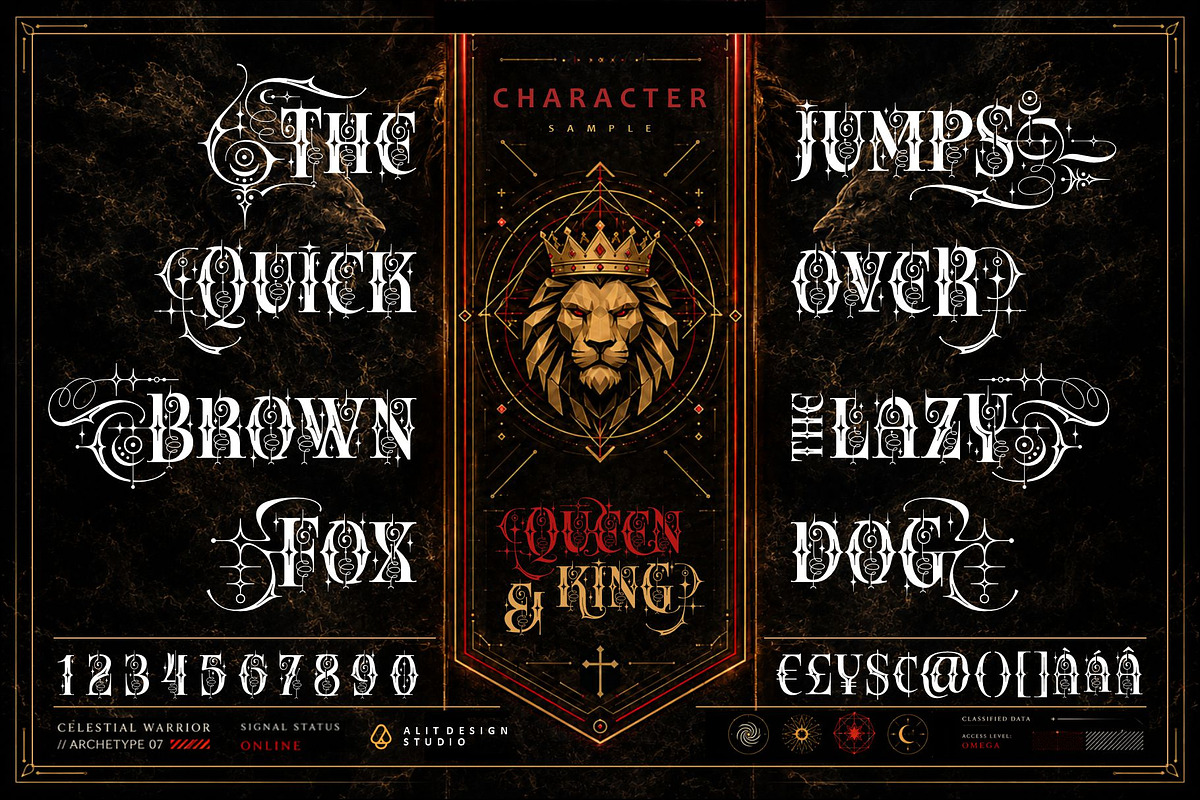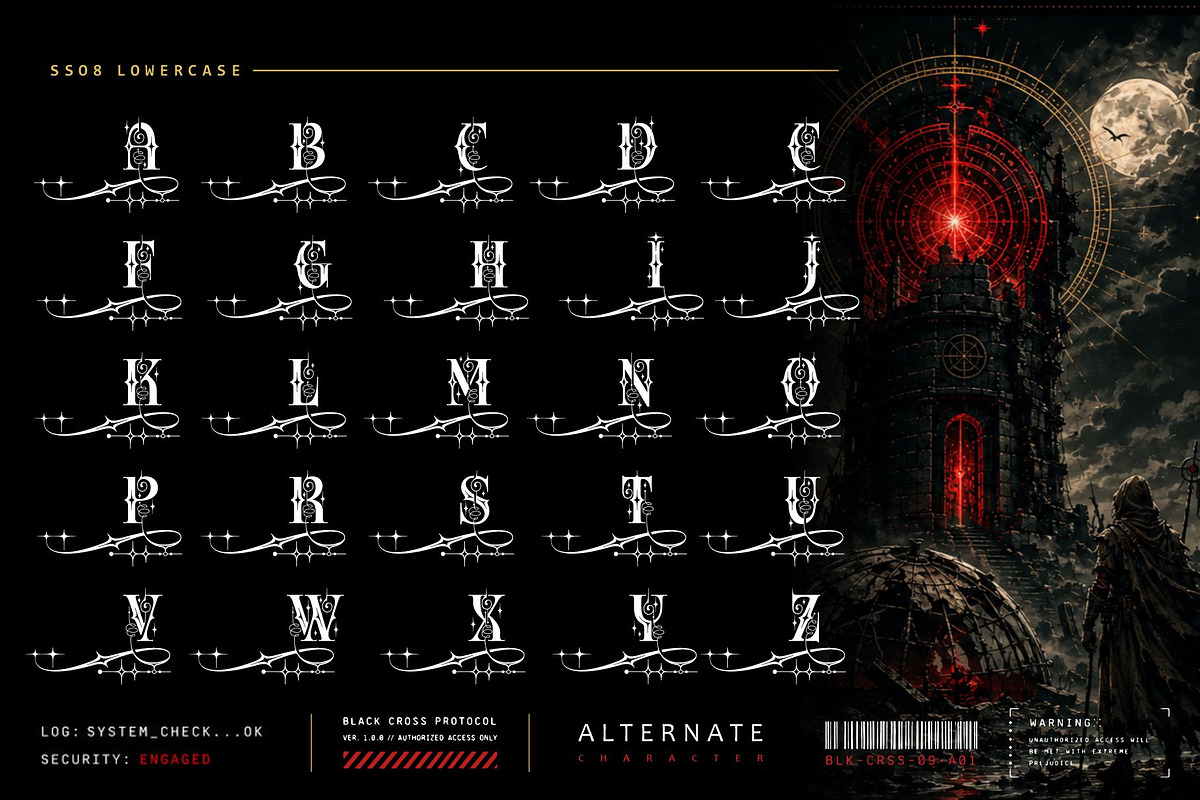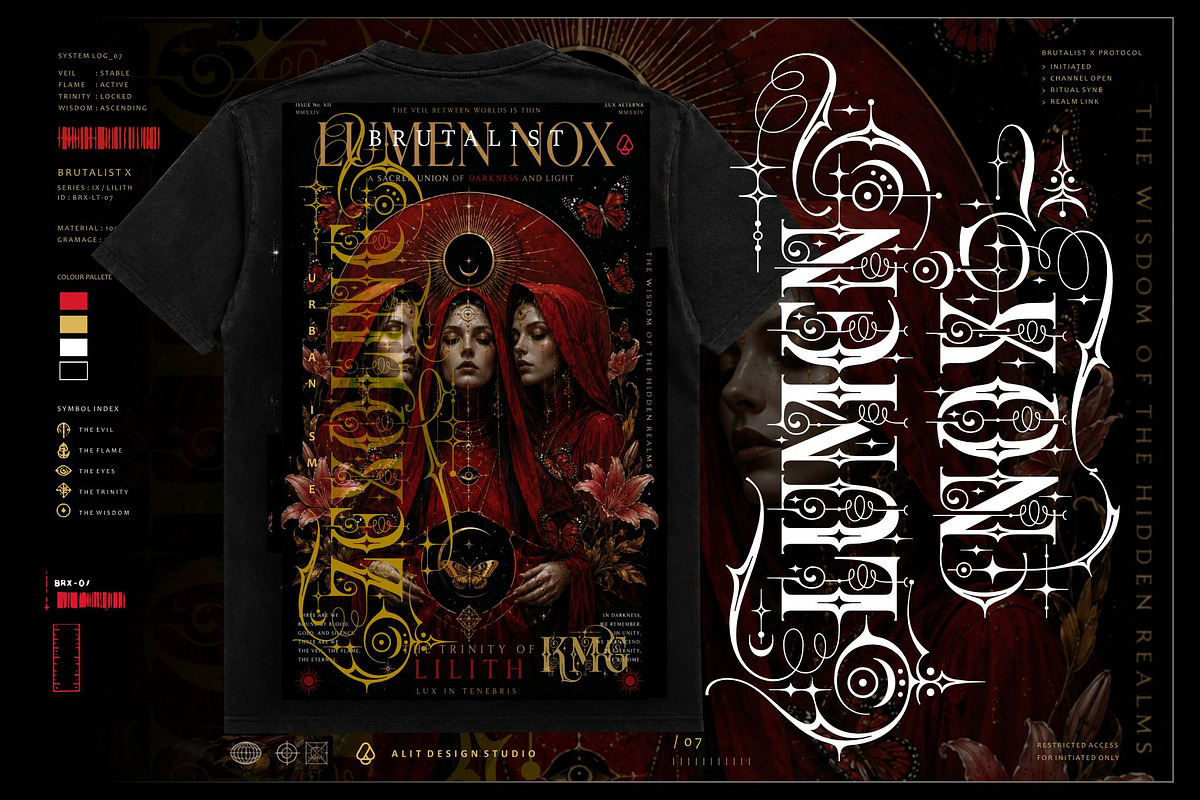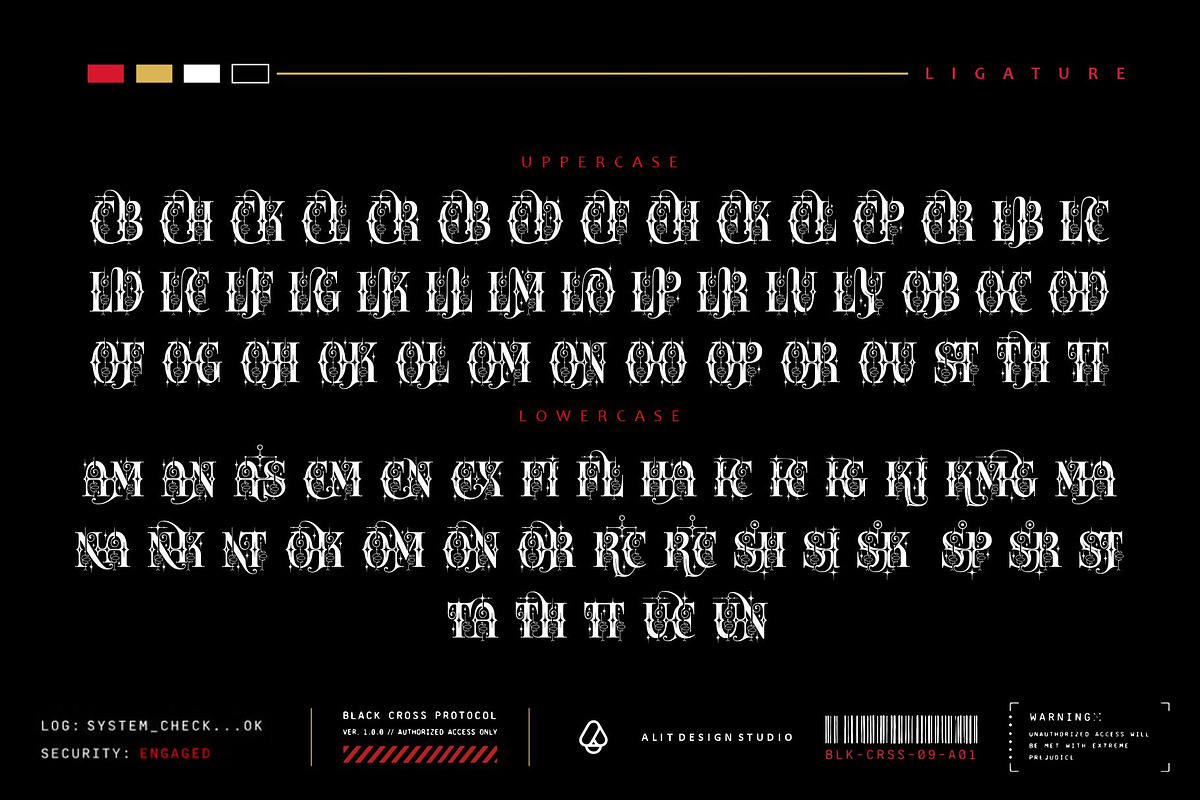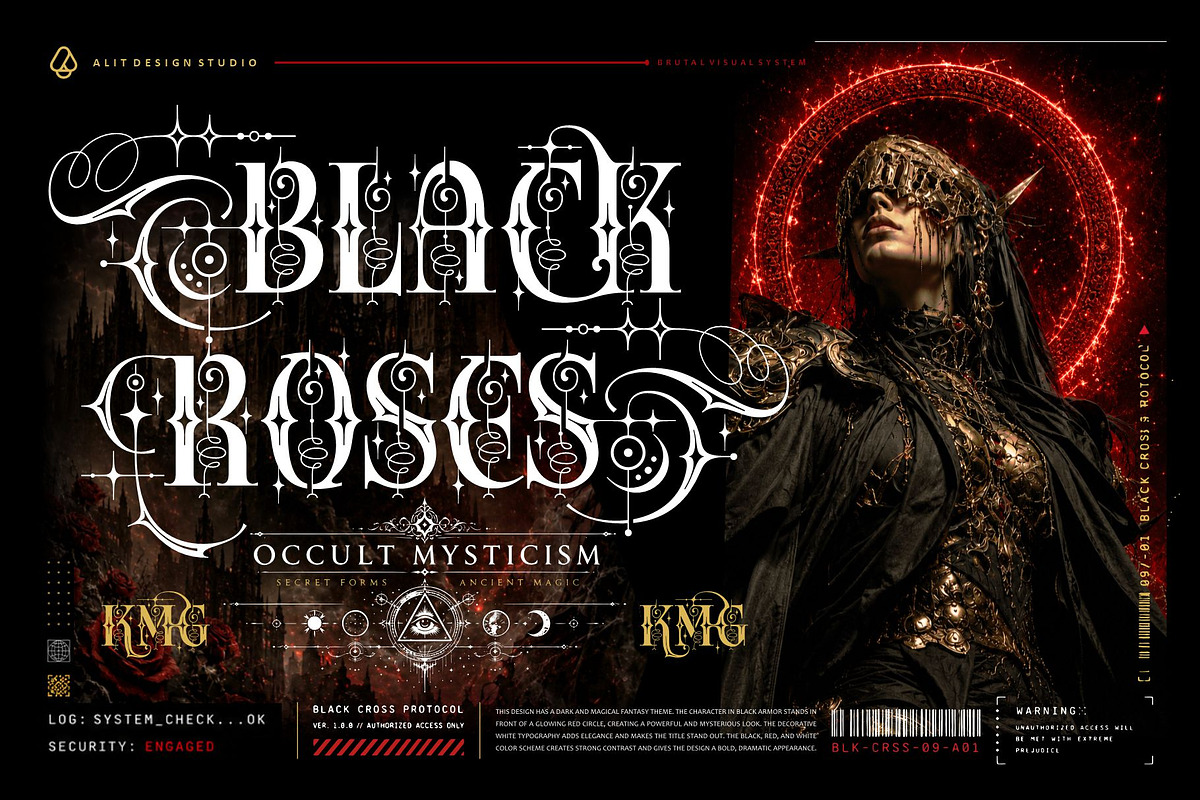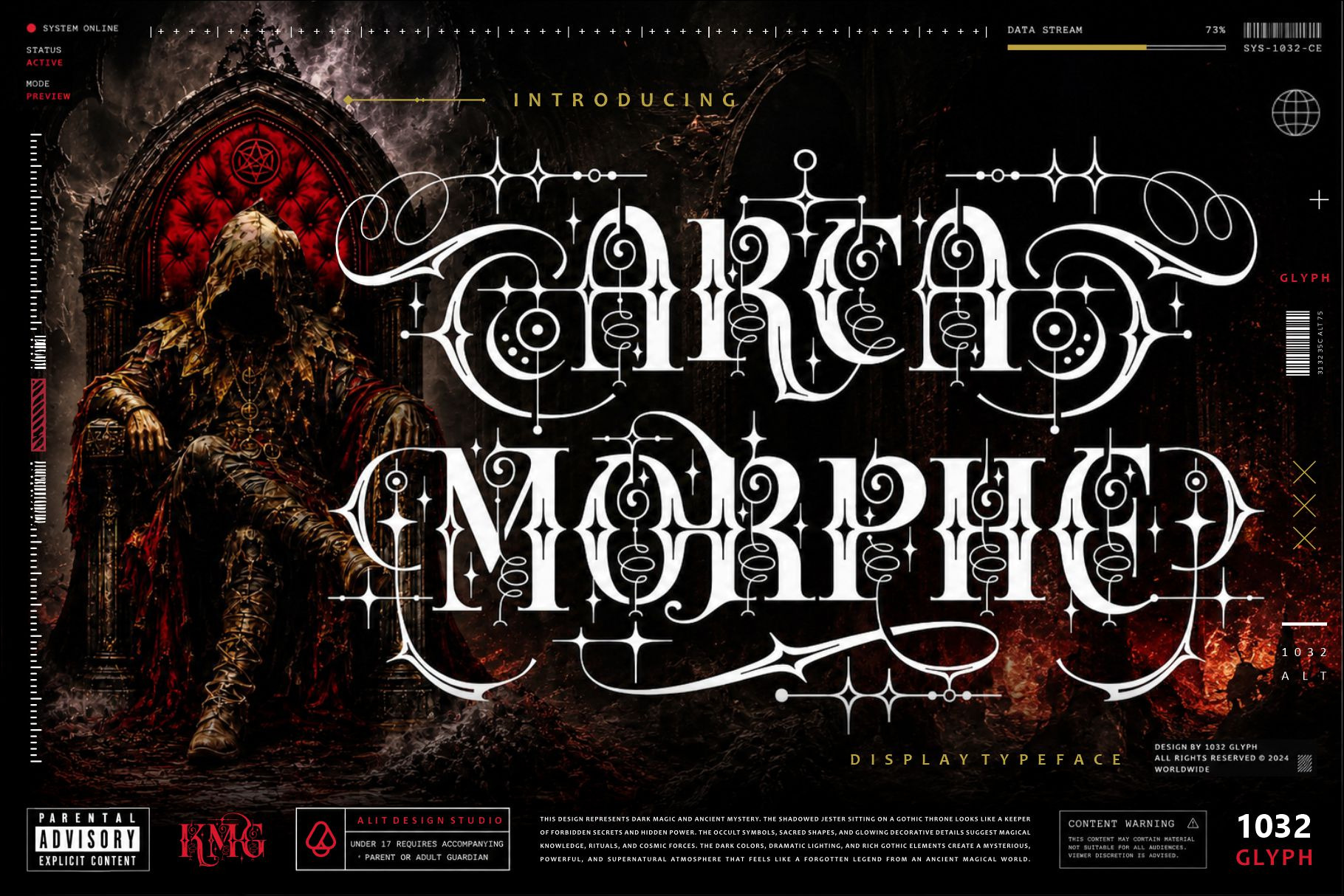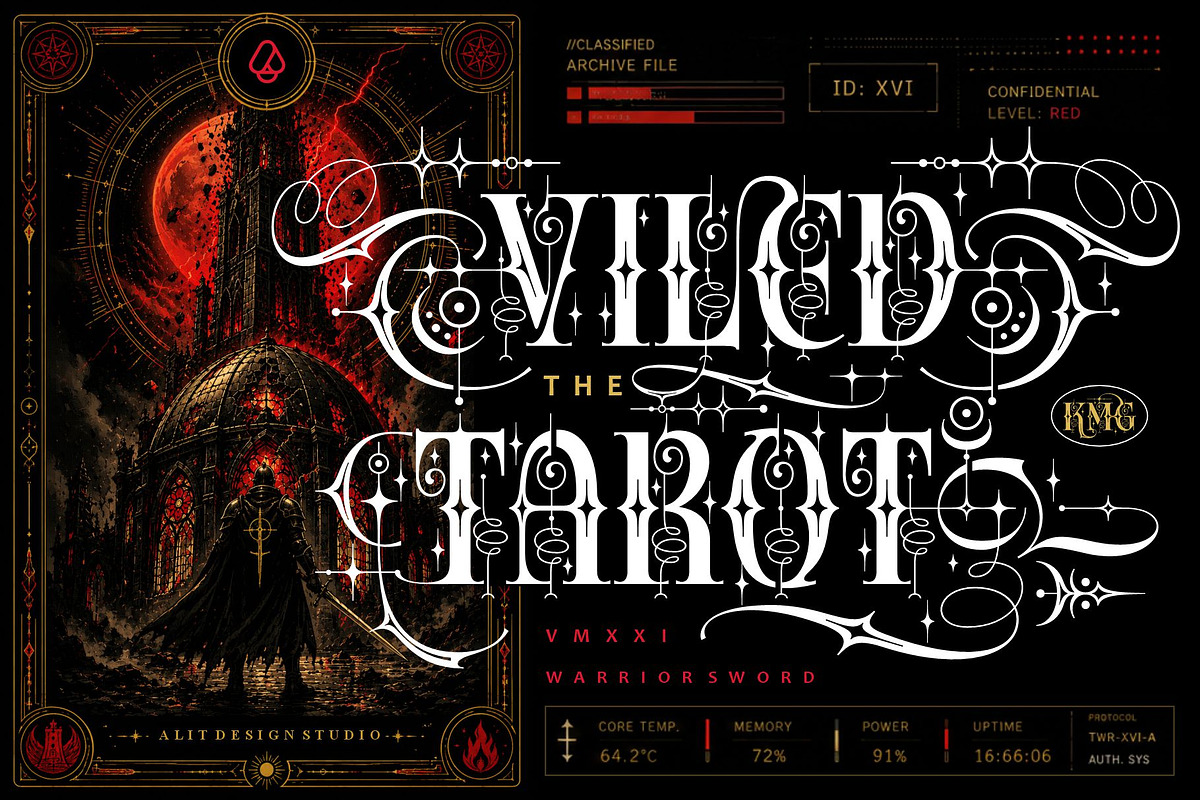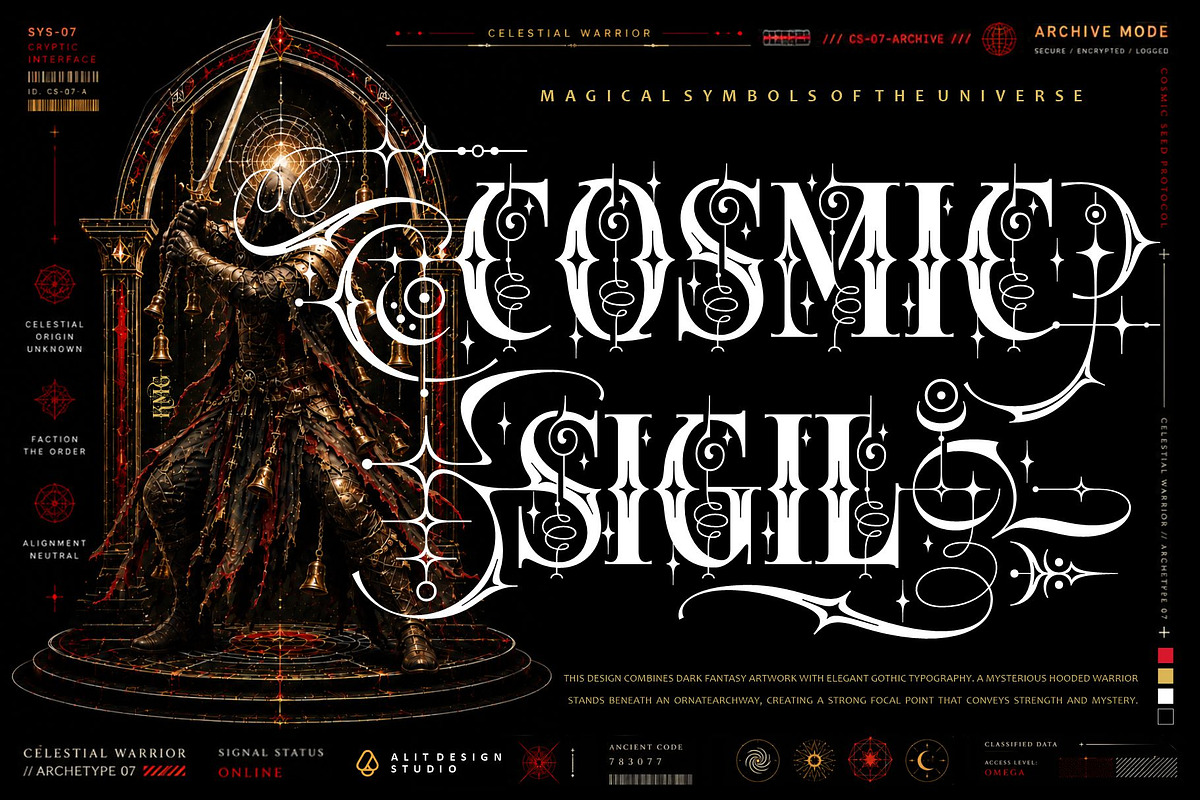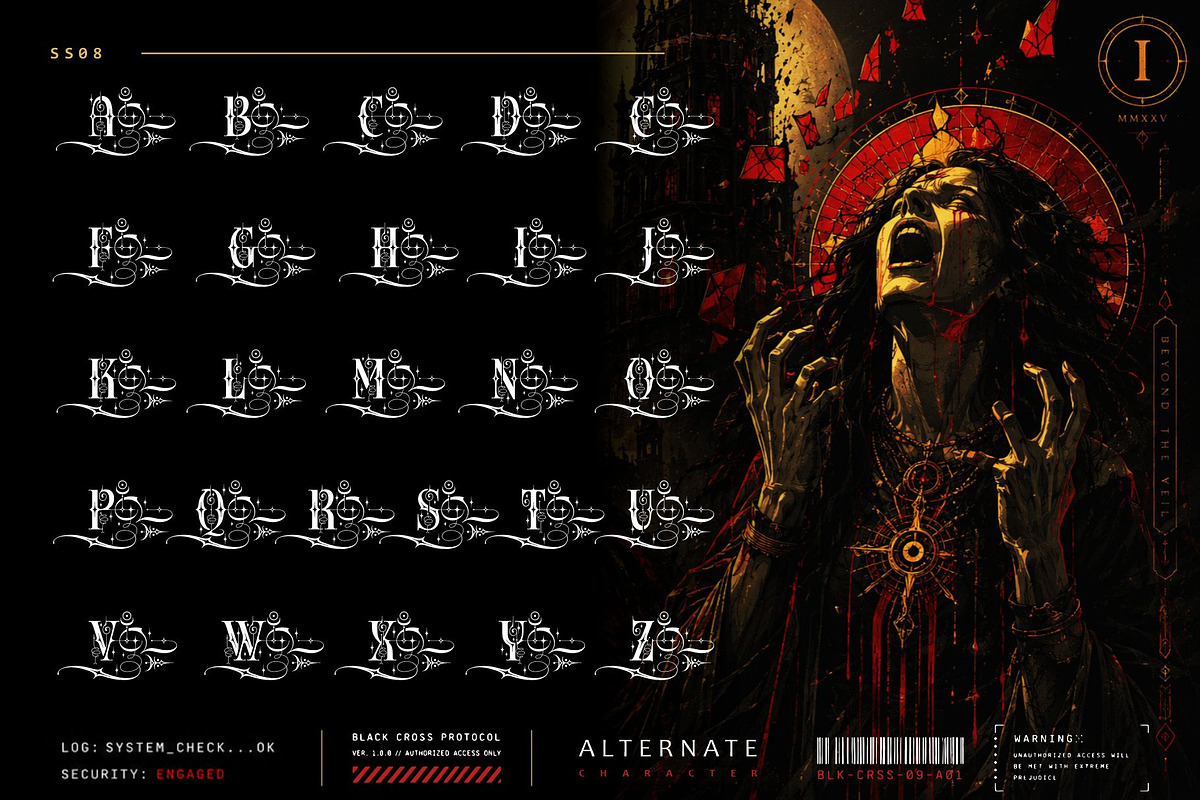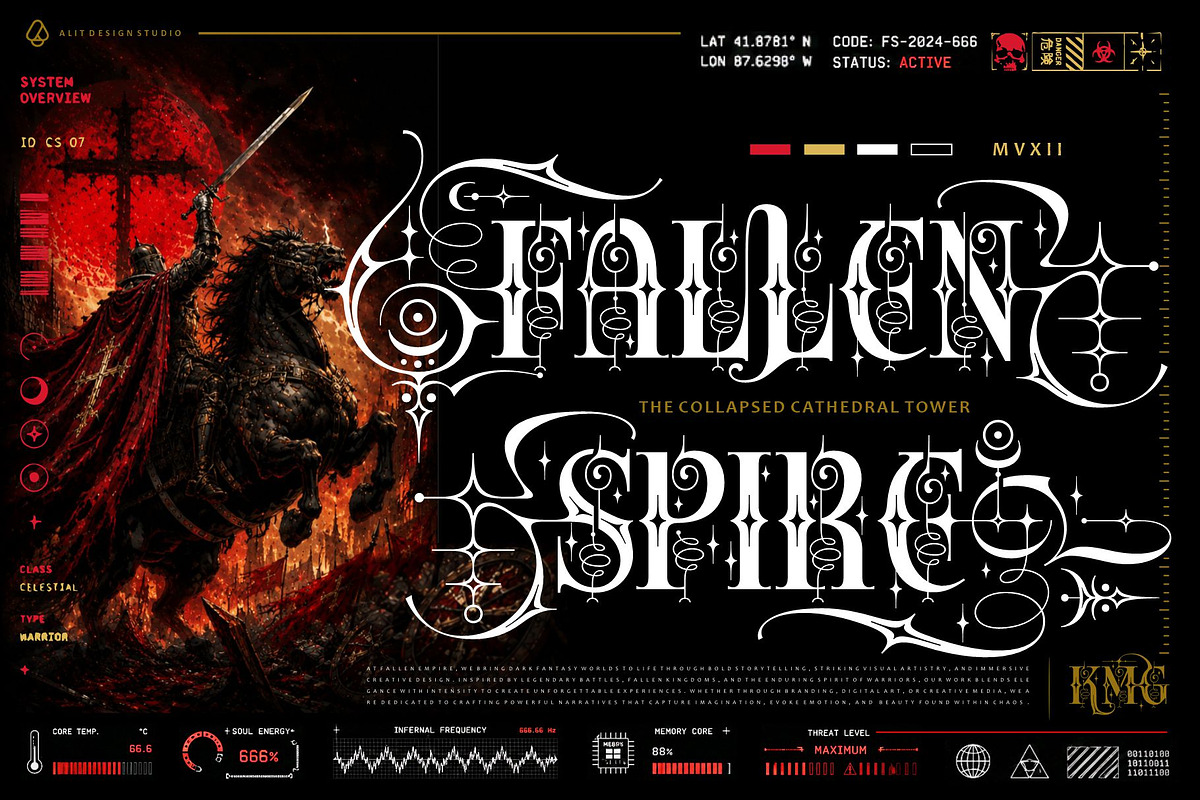
Arca Morphe Typeface
Unleash the Magic of Ancient Typography
Step into a realm of dark fantasy and celestial elegance with Arca Morphe, a breathtakingly intricate display typeface designed to captivate and mystify. Forged with a unique blend of gothic grandeur and esoteric mysticism, this font is not just a tool for writing; it is an instrument of spellbinding design.
Arca Morphe is defined by its sweeping, ornate swashes, celestial starburst accents, and complex, labyrinthine linework that evokes the feeling of ancient grimoires and forgotten magical sigils. Whether you are summoning the atmosphere of a dark fantasy epic, crafting the branding for an arcane society, or designing striking merchandise, Arca Morphe delivers an aesthetic of "Savage Elegance" that commands attention.
A Universe of Design Possibilities This typeface is a powerhouse of versatility, boasting a massive library of 1032 glyphs. It is meticulously engineered to give designers ultimate control over their typography. With an extensive collection of alternate characters and custom ligatures, you can endlessly customize your text to create truly unique, bespoke wordmarks and headings.
Publishing & Media: Fantasy book covers, movie posters, album art, and video game titles.
Branding & Identity: Logos for esoteric brands, luxury gothic apparel, tattoo studios, and artisan crafts.
Merchandise: Intricate t-shirt designs, tarot card decks, posters, and mystical packaging.
Themed Events: Invitations and promotional materials for alternative, theatrical, or magical events.
Massive Glyph Count: 1032 meticulously crafted glyphs.
Extensive Alternates: Hundreds of stylistic alternates to perfectly tailor your typographic compositions.
Custom Ligatures: Beautifully intertwined character combinations for a seamless, hand-lettered feel.
Multilingual Support: Broad language support to ensure your message reaches a global audience.
Numerals & Punctuation: Complete set of numbers, symbols, and essential punctuation.
Unlock the secrets of Arca Morphe and bring your darkest, most enchanting visions to life.